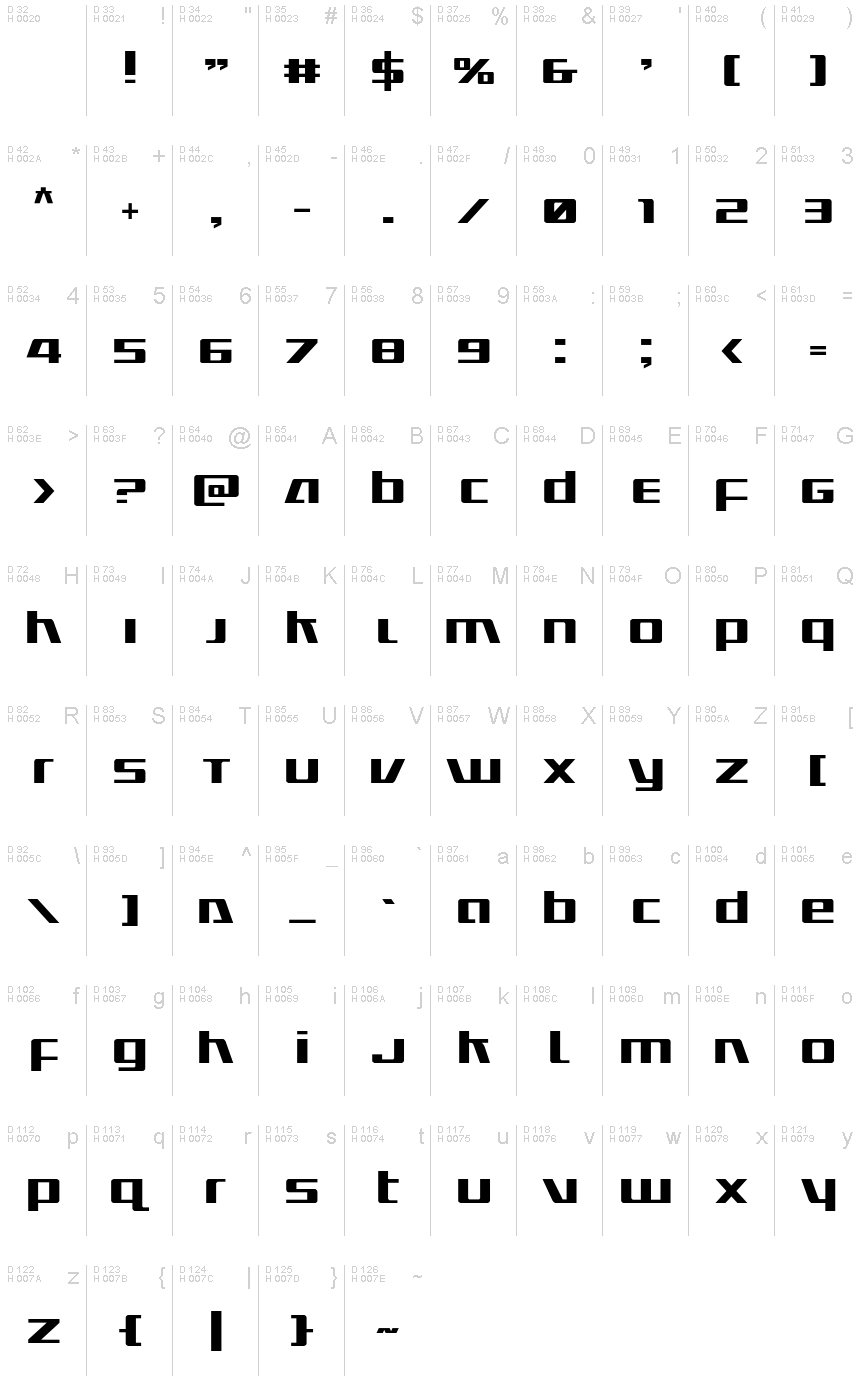
Ultramarines
Ultramarines font, designed by Iconian Fonts, embodies a strikingly futuristic essence that commands attention. This display typeface captivates with its bold presence and expanded form, making each character stand out dramatically. The design exudes a sense of adventure and high-tech sophistication, perfect for projects that seek to convey innovation and exploration.
Its aesthetic appeal lies in its unique blend of robust structures and dynamic curves, creating an engaging visual rhythm. Ultramarines shines in applications ranging from sci-fi-themed media to modern branding endeavors where clarity meets creativity. Whether used for headlines or promotional materials, this font's distinct character ensures it leaves a lasting impression in any design context.